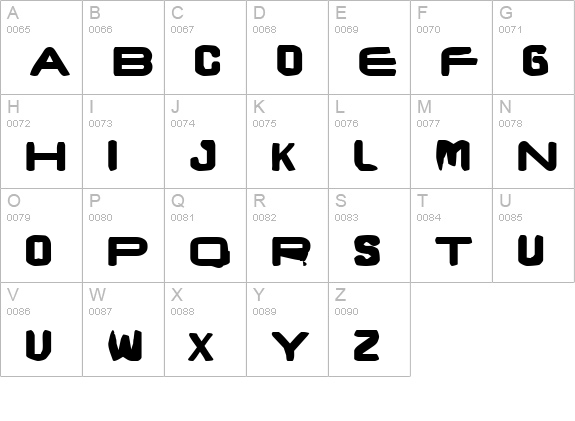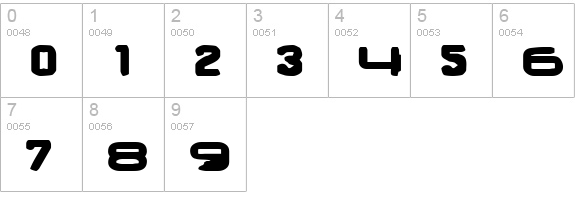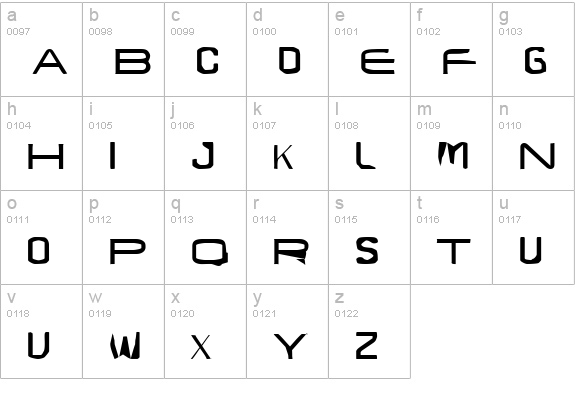
BrunstCaps Font Details
Introducing BrunstCaps, a versatile and stylish font that exudes elegance and sophistication. This font features beautifully crafted uppercase characters with a modern twist, making it perfect for a wide range of design projects. Whether you're working on branding materials, invitations, posters, or any other creative endeavor, BrunstCaps will add a touch of class and sophistication to your work. The best part? BrunstCaps is available for free download at FontsMarket.com! Yes, you read that right - this stunning font can be yours at no cost, allowing you to elevate your designs without breaking the bank. Don't miss out on this amazing opportunity to add BrunstCaps to your font collection today and take your projects to the next level.